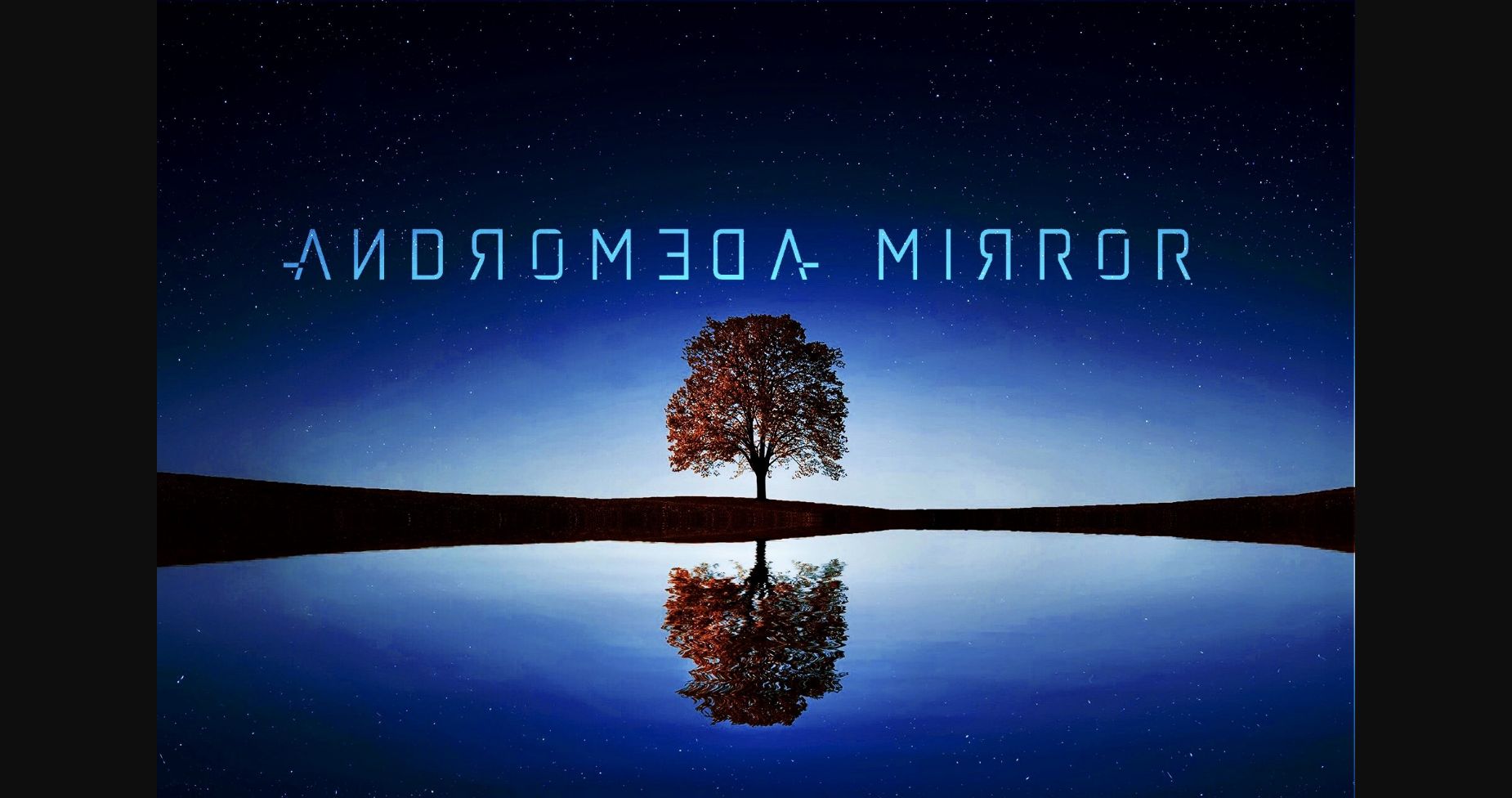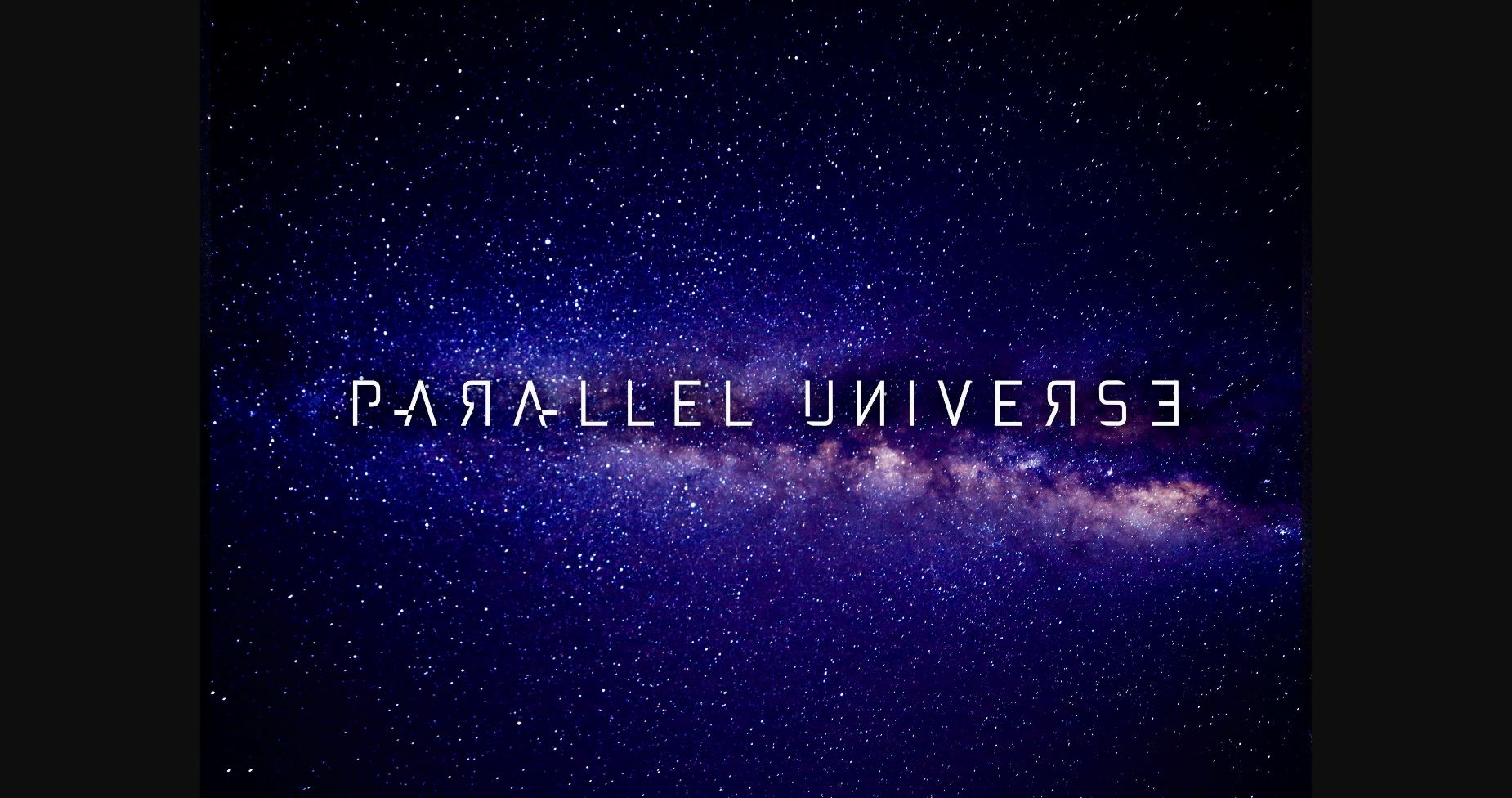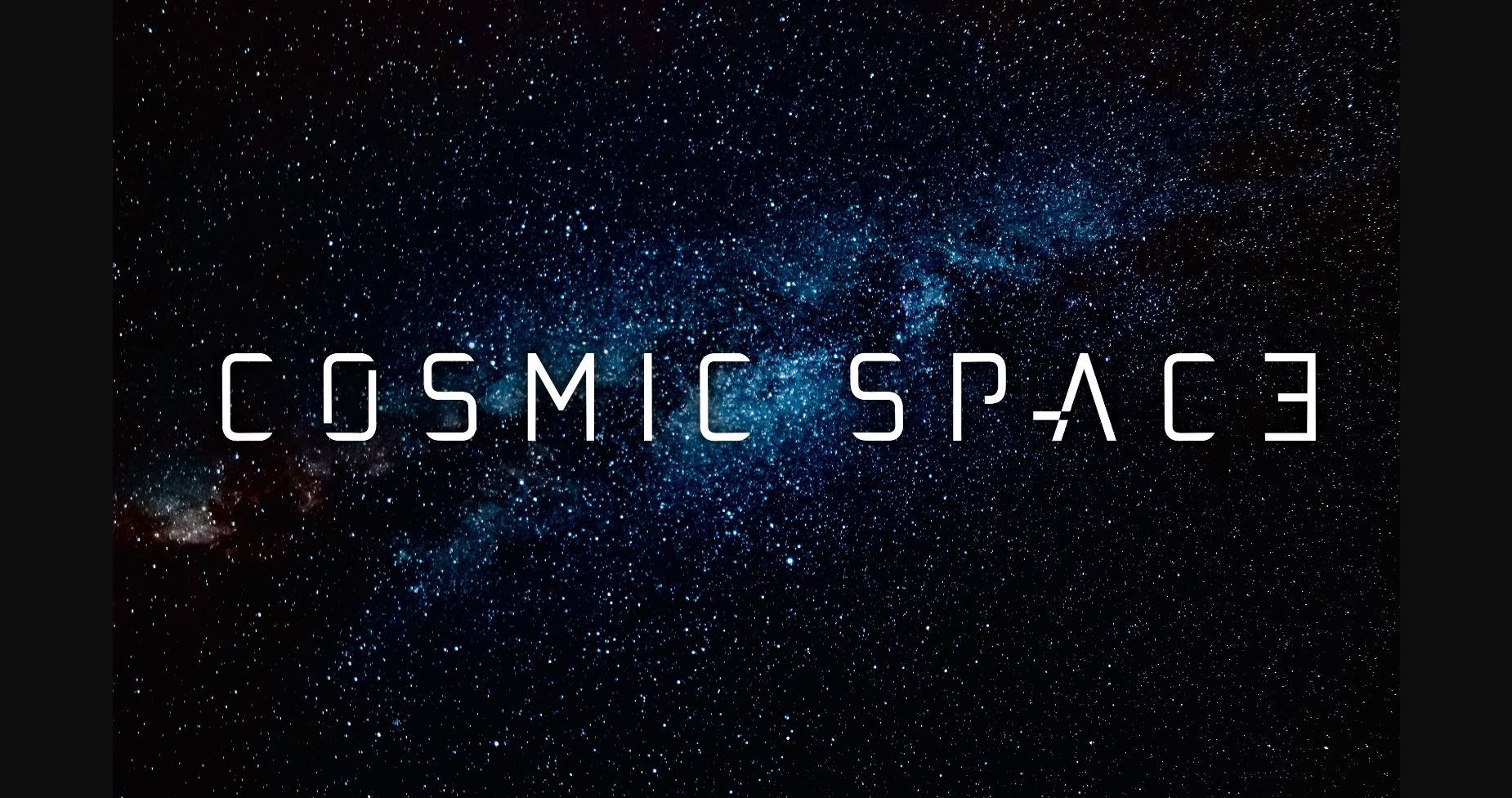
HomeSans Serif FontsAndromeda Mirror Font Sans Serif Fonts Andromeda Mirror Font FacebookXPinterestWhatsApp 1 of 5 ... Andromeda Mirror Font Poster 2... Andromeda Mirror Font Poster 3... Andromeda Mirror Font Poster 4... Andromeda Mirror Font Poster 5... About Andromeda Mirror Font Andromeda Mirror is a futuristic and minimal sans serif font inspired by the emptiness of space. It is designed in a clean yet elegant manner, and it works on almost any project. DOWNLOAD NOW People also explored Samutin Font Masculine Font Tofu Font Pour La Vie Font Simple Life Font Bazzotte Font Humelzo Font Good Font Ayuscript Font 270 0 TagsAndromeda Mirror Font Previous articleWeird Science FontNext articleJumps Hill Font LEAVE A REPLY Cancel reply Comment: Please enter your comment! Name:* Please enter your name here Email:* You have entered an incorrect email address! Please enter your email address here Website: Save my name, email, and website in this browser for the next time I comment. Personal Use Free Waverly Date Personal Use Free Read more about this font Castina Personal Use Free Read more about this font Die Nasty Personal Use Free Read more about this font Cinderella Personal Use Free Read more about this font BLOG 5 Fonts That Will Dominate Design Trends in 2026 5 Fonts for 2026 That Will Dominate Design Trends Typography plays a critical role in visual communication, and as we look ahead to 2026, it’s... To increase your work productivity, choose the most readable fonts. Elegant Wedding Invitation Fonts – Handwritten & Script Fonts Modern Sans-Serif Fonts That Brands Love in 2025